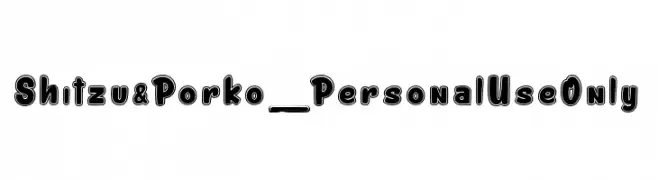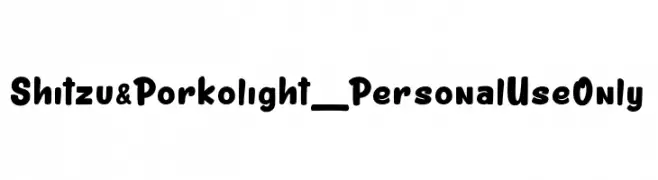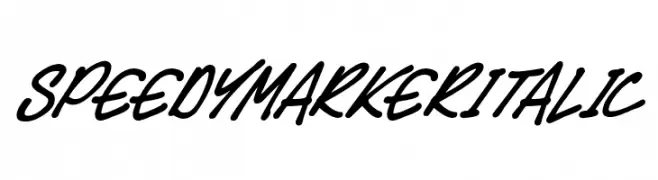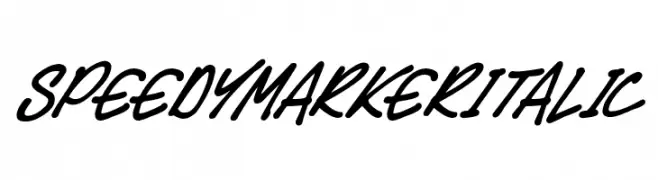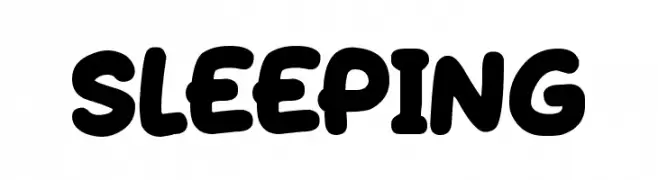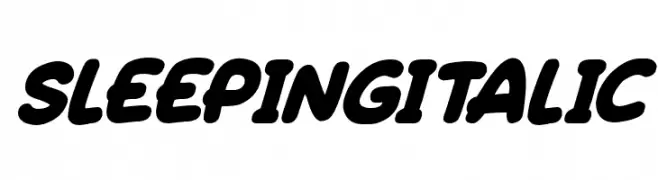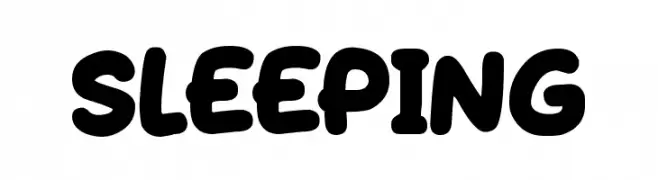
( Fonts by dcoxy )
A bold, outlined font with a playful and cartoonish style.
( Fonts by dcoxy )
A playful, bold font with rounded edges and a friendly appearance.
( Fonts by Indriyanti )
( Fonts by Darrell Flood )
A bold, handwritten font with a dynamic, marker-like style.
( Fonts by Darrell Flood )
A bold, handwritten-style font with dynamic, marker-like strokes.
( Fonts by Darrell Flood )
A bold, italic handwritten font with a dynamic, marker-like style.
( Fonts by Darrell Flood )
A bold, italic, marker-style font with a dynamic, handwritten look.
( Fonts by Darrell Flood )
A bold, playful font with rounded, bubbly characters.
( Fonts by Darrell Flood )
A bold, playful italic font with rounded, thick characters.
( Fonts by Darrell Flood )
A playful, bold font with rounded, thick strokes and a whimsical style.